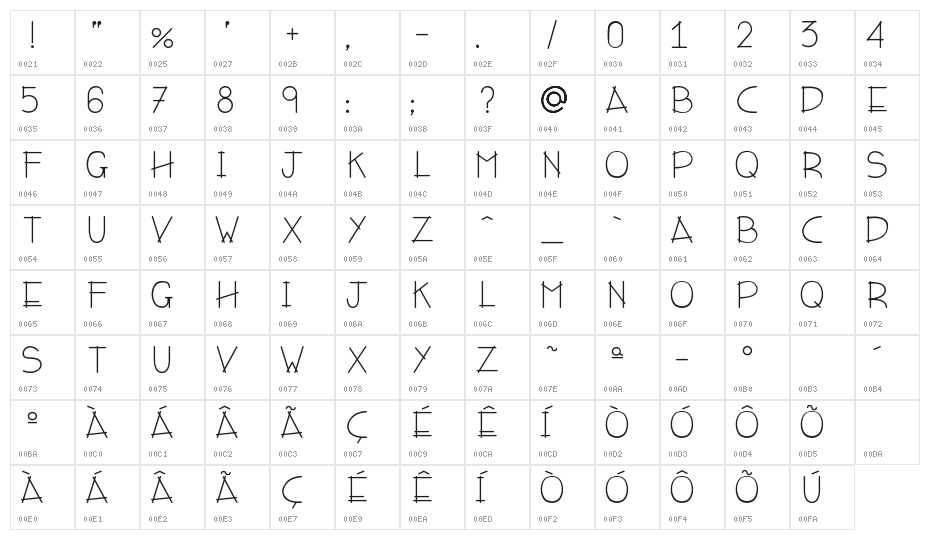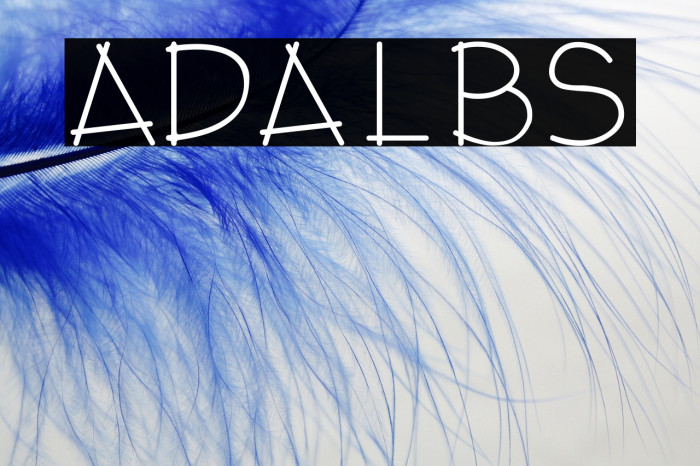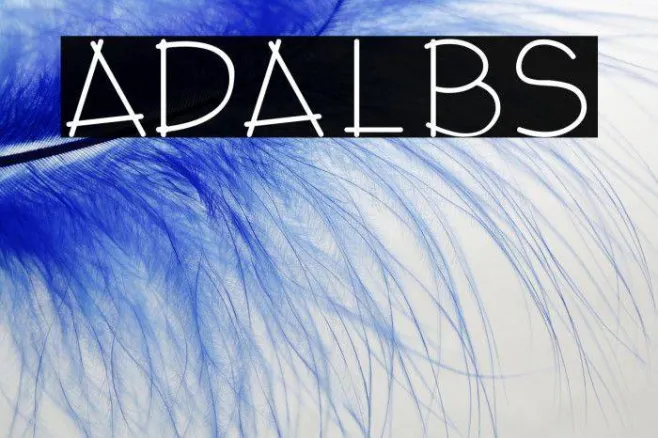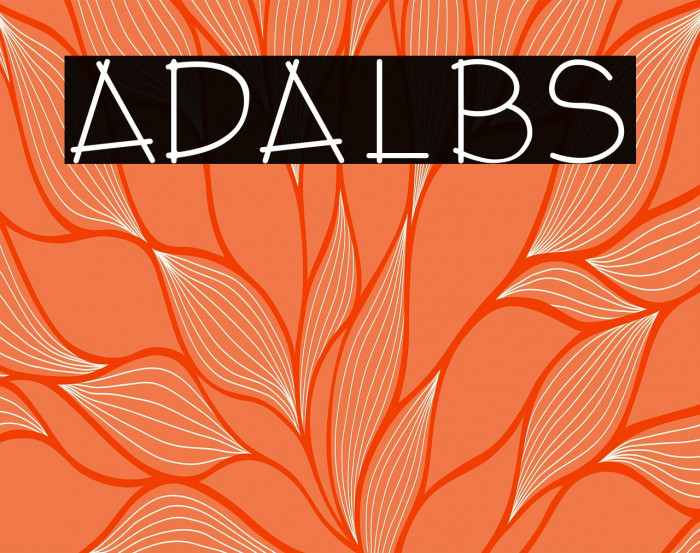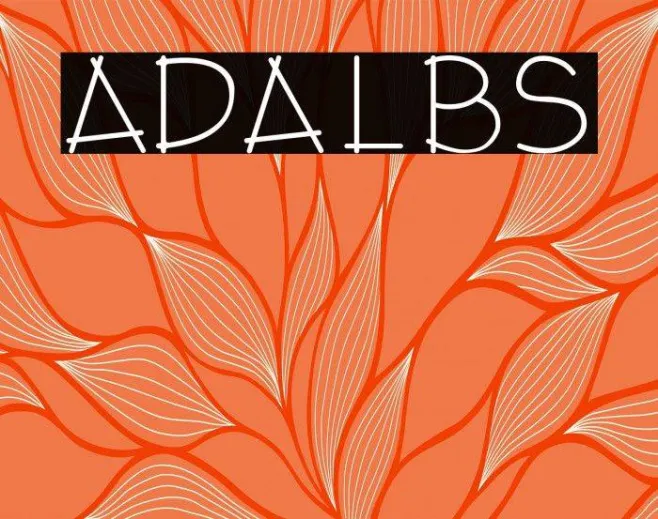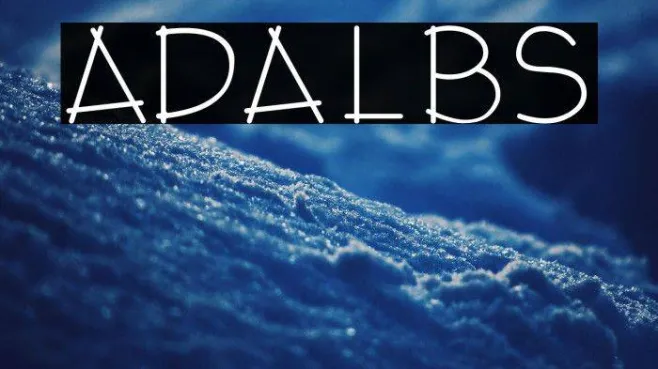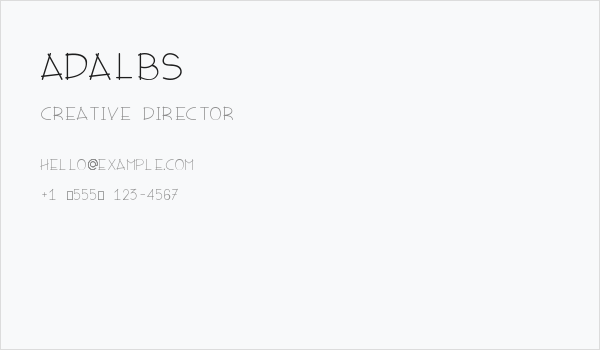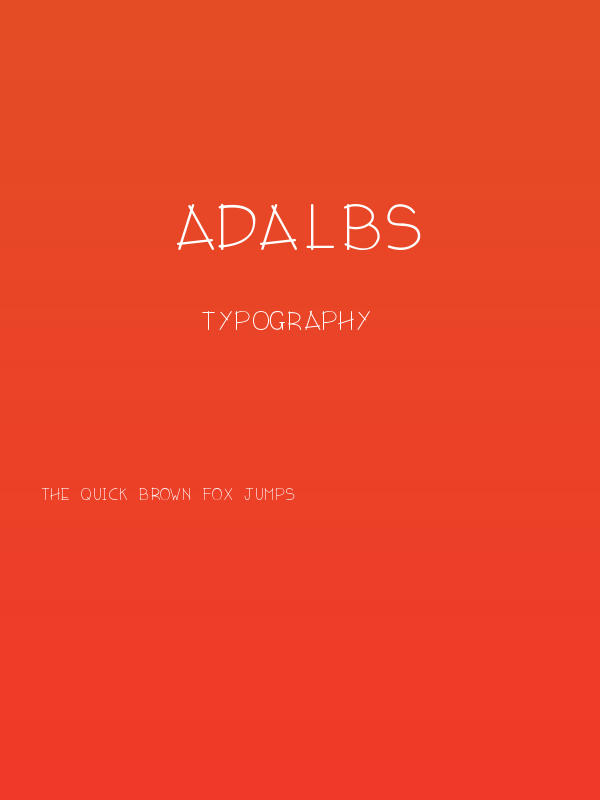
ADALBS Font
ADALBS Description
This font features a unique and playful design with a hand-drawn aesthetic. Each character is crafted with a thin, consistent stroke, giving it a delicate and whimsical appearance. The letters have a slight irregularity that adds to the charm, making it feel as though each letter was carefully sketched by hand. The uppercase and lowercase letters maintain a consistent style, with rounded edges and a slight tilt, contributing to its informal and approachable look. The numerals and special characters follow the same design principles, ensuring a cohesive appearance across all glyphs. This font is perfect for projects that require a personal touch or a creative flair.
| Overall Style | Whimsical |
| Proposed Projects | Ideal for children's books, greeting cards, creative branding, and playful invitations. |